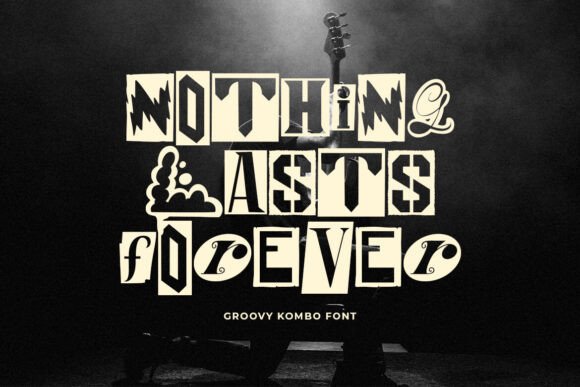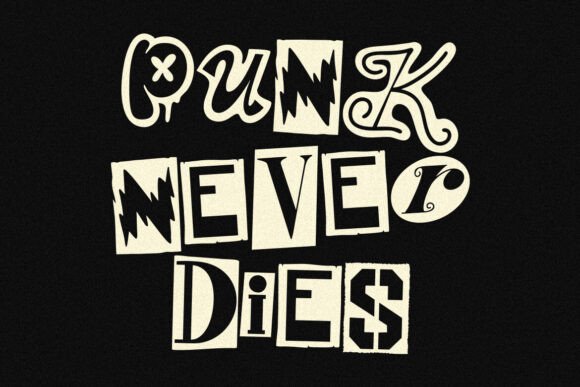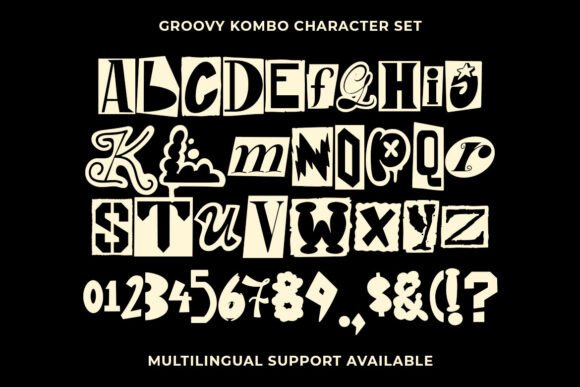
The Groovy Kombo Font: A Bold and Versatile Block Display Font
I’ll never forget the time I was working on a design project for a client who wanted a bold and eye-catching font to make their brand stand out. I scoured the internet for hours, but nothing seemed quite right. That was until I stumbled upon the Groovy Kombo font. This unique and striking block display font combines various styles of block letters, creating a visually dynamic and versatile typeface that’s perfect for making a statement.
So, what do I love about the Groovy Kombo font? Here are a few things that caught my attention:
- ✨ Unique and eclectic design: The Groovy Kombo font offers a mix of different block letter designs, making it a standout in any design project.
- ✅ Versatile and dynamic: This font can be used for a variety of design projects, from posters and flyers to social media graphics and branding.
- 💥 Attention-grabbing: The bold and striking design of Groovy Kombo is sure to grab attention and make your designs pop.
Of course, no font is perfect, and there are a few small quirks to be aware of:
- 🤔 Limited use in body text: Due to its bold and eclectic design, Groovy Kombo may not be the best choice for body text or long blocks of text.
- ⚠️ Glyph compatibility: Some glyphs may not work seamlessly with all design software or platforms.
The Designer Inspiration Behind Groovy Kombo
The Groovy Kombo font was inspired by the eclectic and playful vibe of 1970s and 1980s design. The designer, who wishes to remain anonymous, drew inspiration from vintage posters, graffiti, and street art. The result is a unique and eye-catching font that’s perfect for making a statement.
| What is the Groovy Kombo font best used for? | The Groovy Kombo font is best used for bold and eye-catching designs, such as posters, flyers, social media graphics, and branding. |
| Does Groovy Kombo support OpenType features? | Yes, Groovy Kombo supports OpenType features, including glyphs and stylistic alternates. |